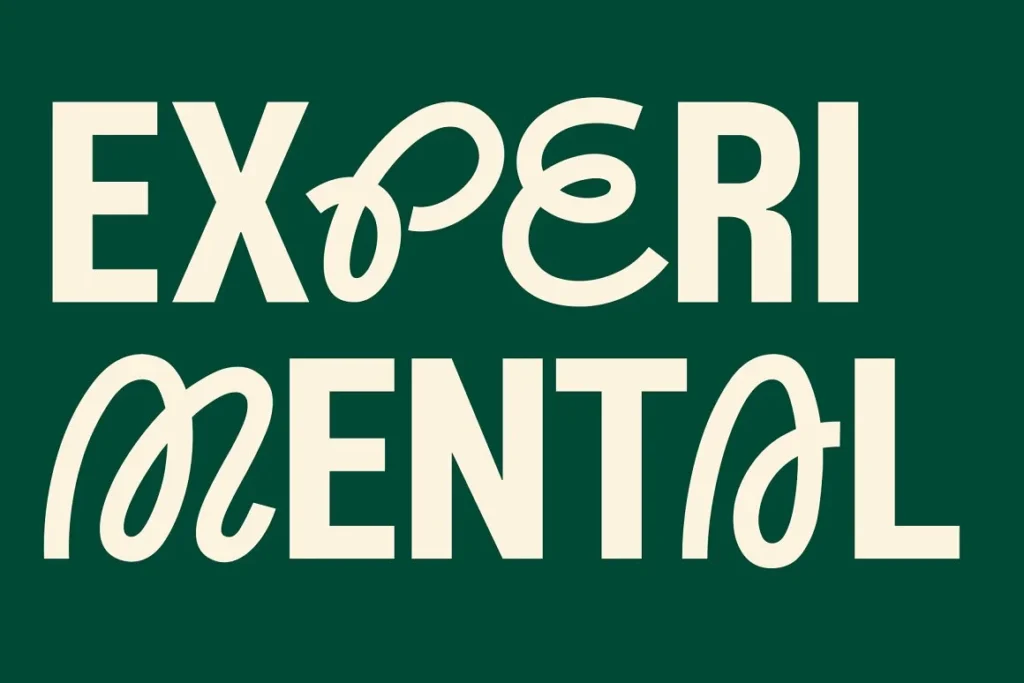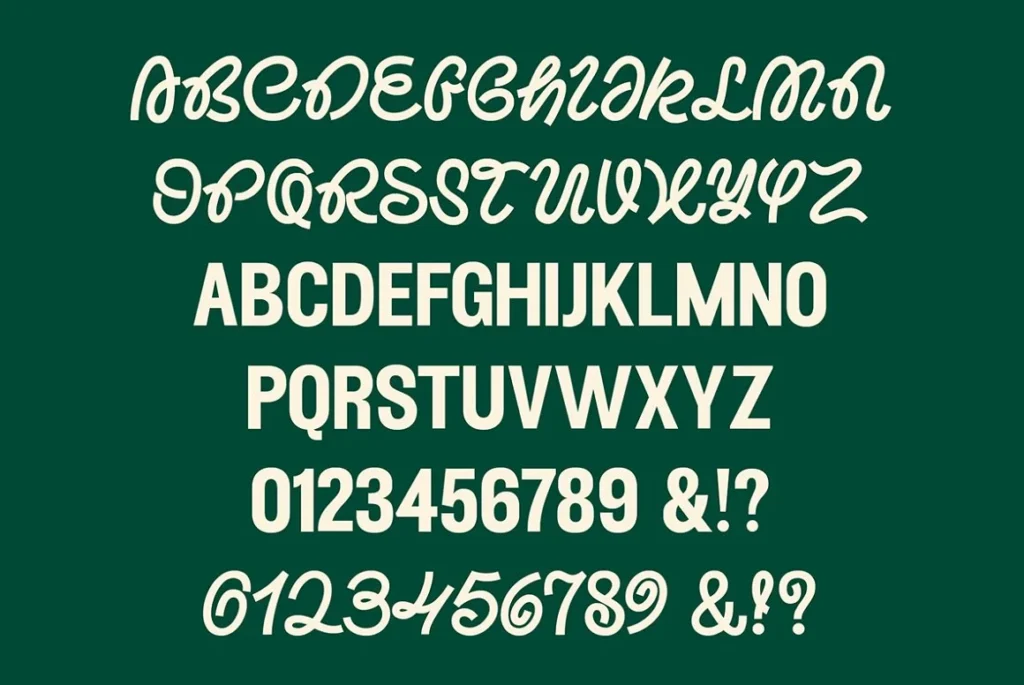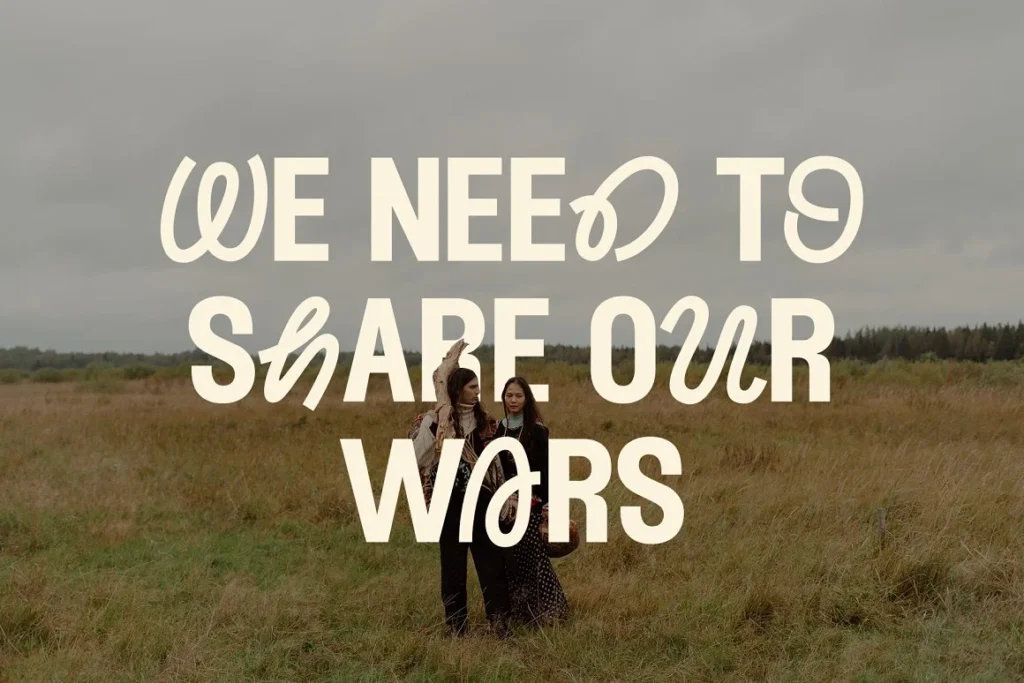
Nimpkish Font Typeface is an exploratory mix of text styles. Incorporate 2 textual styles that have a totally different style and appearance, yet make this text style look novel.
This textual style is furnished with a few highlights, like elective characters, ligatures, and multi-language support that makes it more straightforward for you to plan.